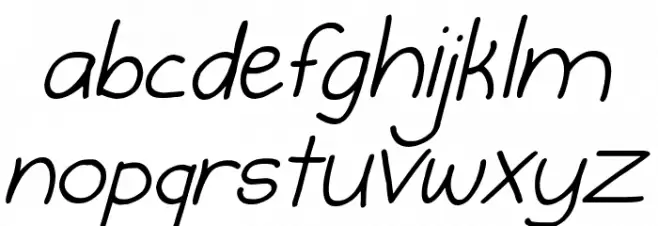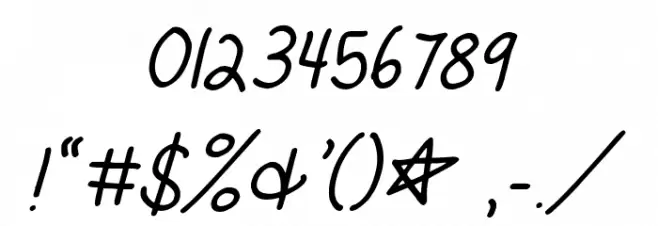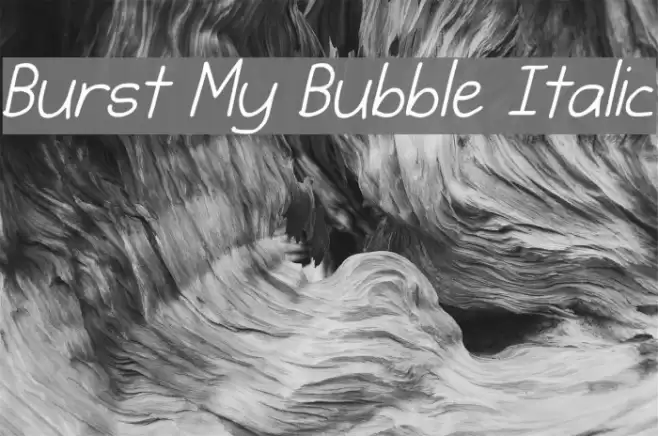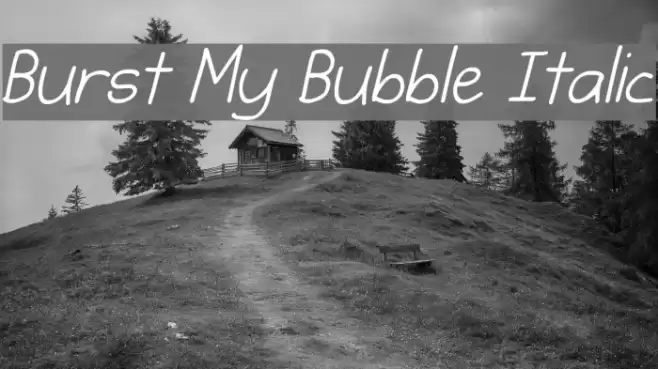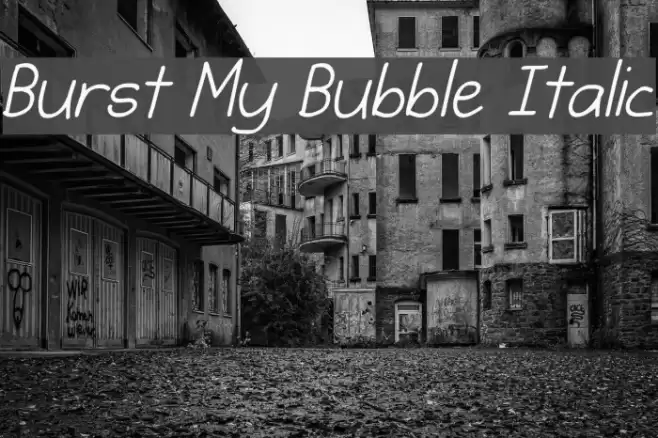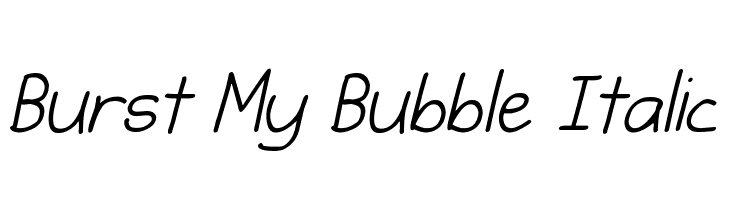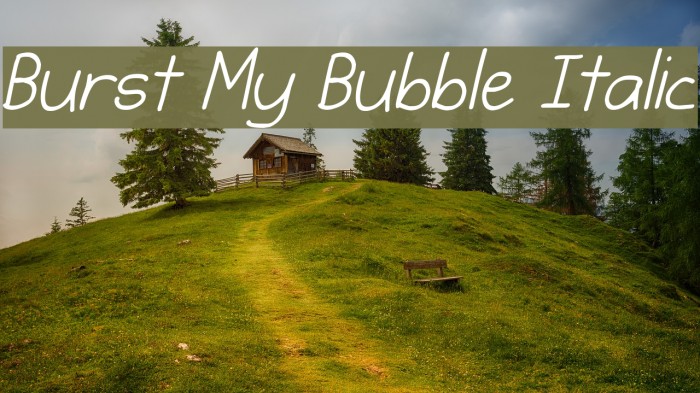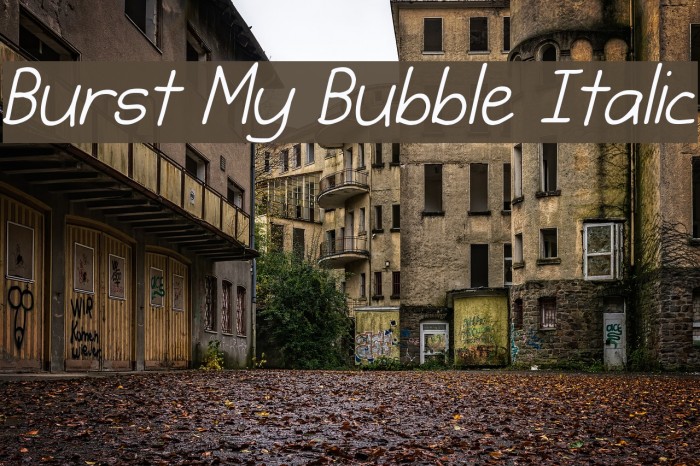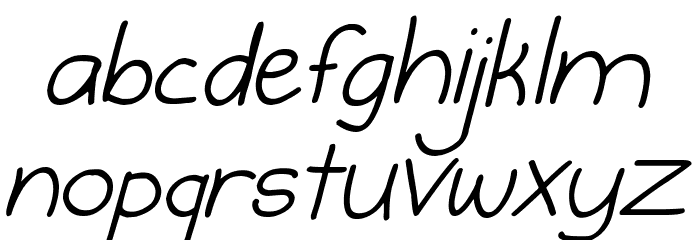
Burst My Bubble Italic
This playful and whimsical font features a handwritten style with a slight slant, giving it an informal and friendly appearance. The characters are rounded and smooth, with a consistent stroke width that adds to its approachable feel. The uppercase and lowercase letters are well-balanced, maintaining readability while conveying a sense of fun. The numerals and special characters are designed to match the overall style, ensuring cohesion across all text elements. This font is ideal for projects that require a personal touch or a casual vibe.
A playful, handwritten font with a slight slant and rounded characters.
- Proposed Projects: Greeting cards, children's books, casual invitations, and playful branding.
- Overall Style: Casual, Playful
- Use Case: Headlines, Informal text, Branding